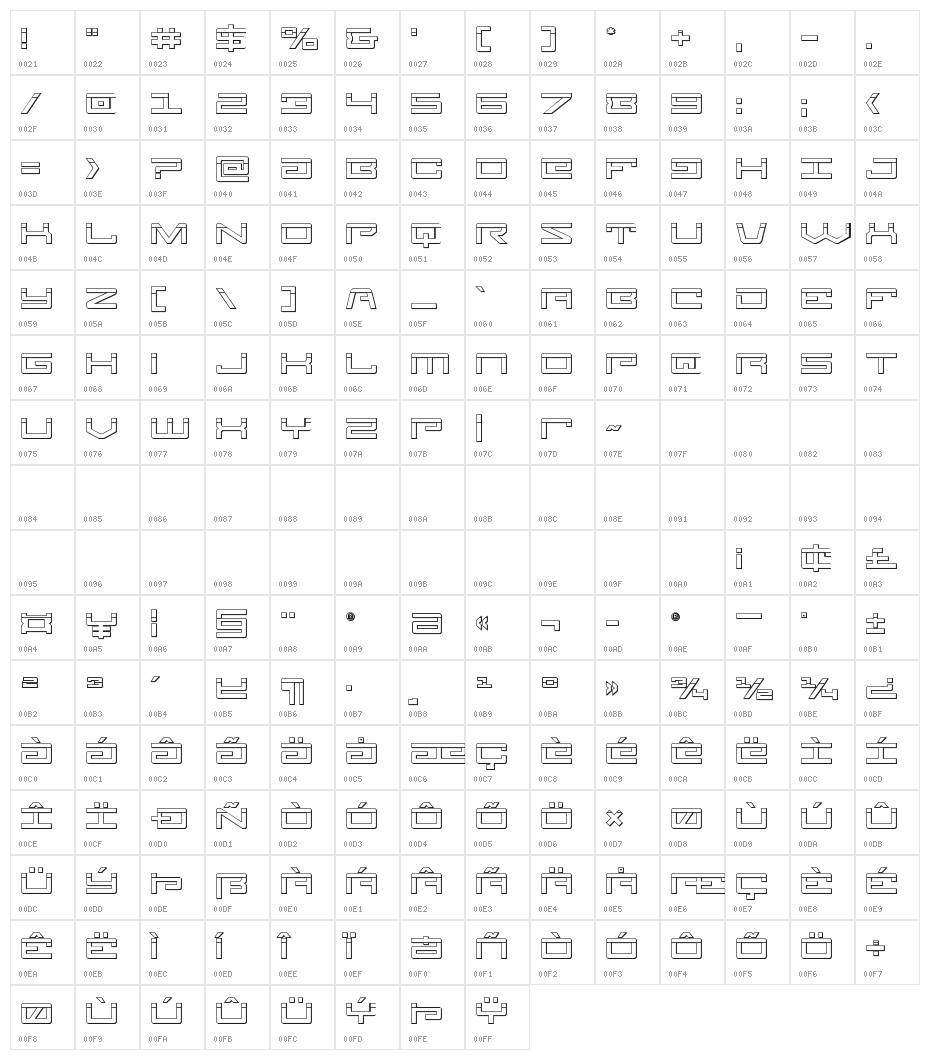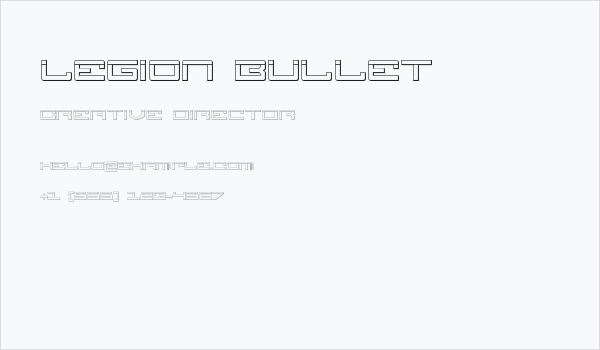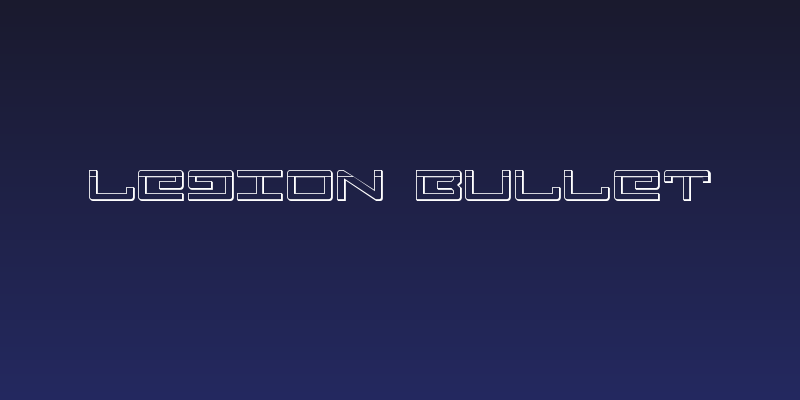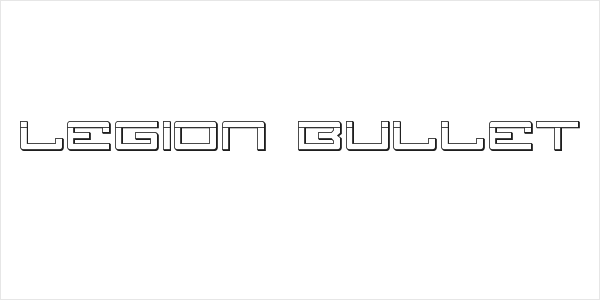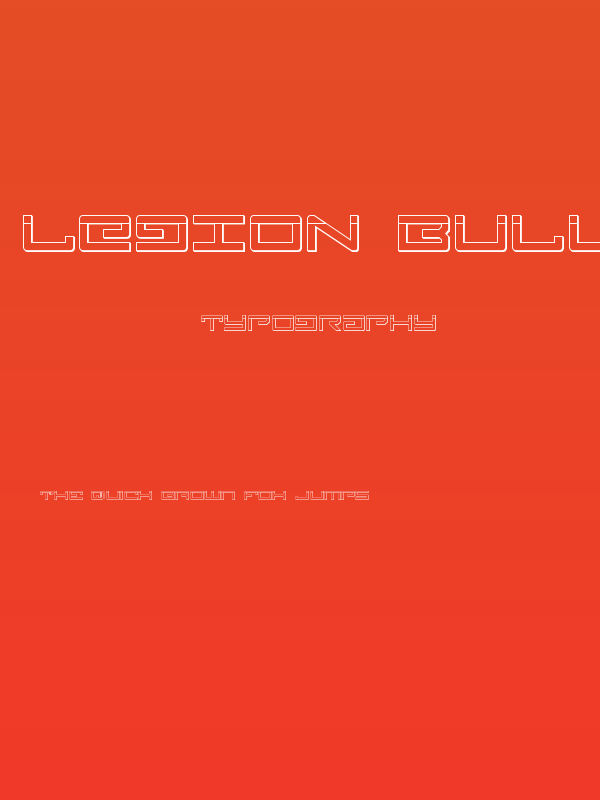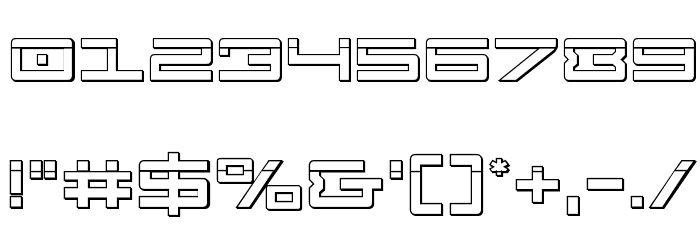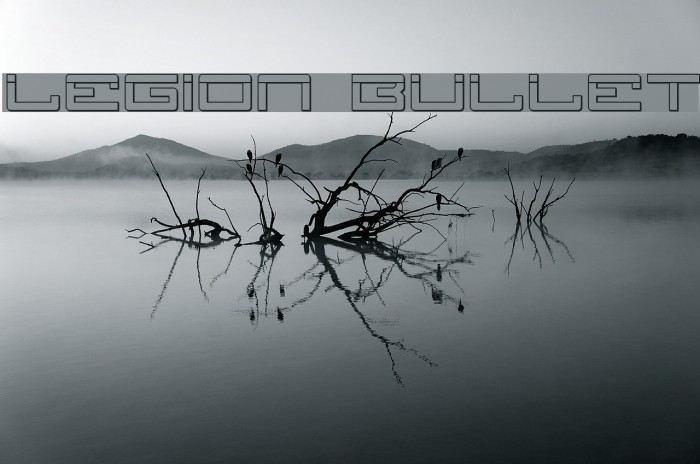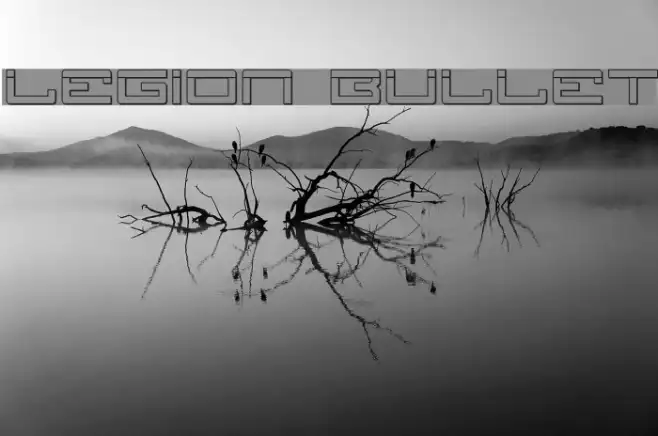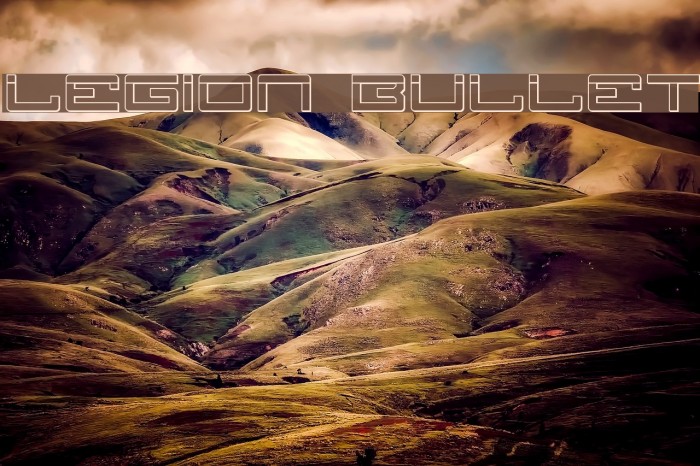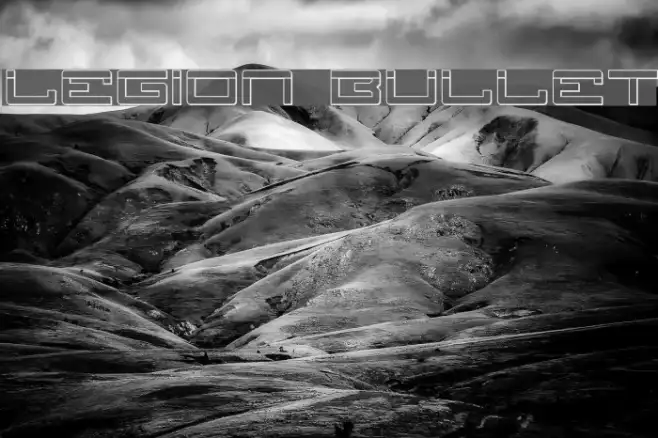
Legion Bullet Font
Legion Bullet Description
This font features a futuristic and geometric design, characterized by its bold, angular lines and open, hollow structure. The characters are constructed with a consistent line weight, creating a uniform and cohesive appearance. The uppercase and lowercase letters maintain a similar style, with distinct, sharp edges and a modern aesthetic. The numerals and special characters follow the same design principles, ensuring a seamless integration across all glyphs. This font's unique style makes it ideal for projects that require a contemporary and tech-inspired look.